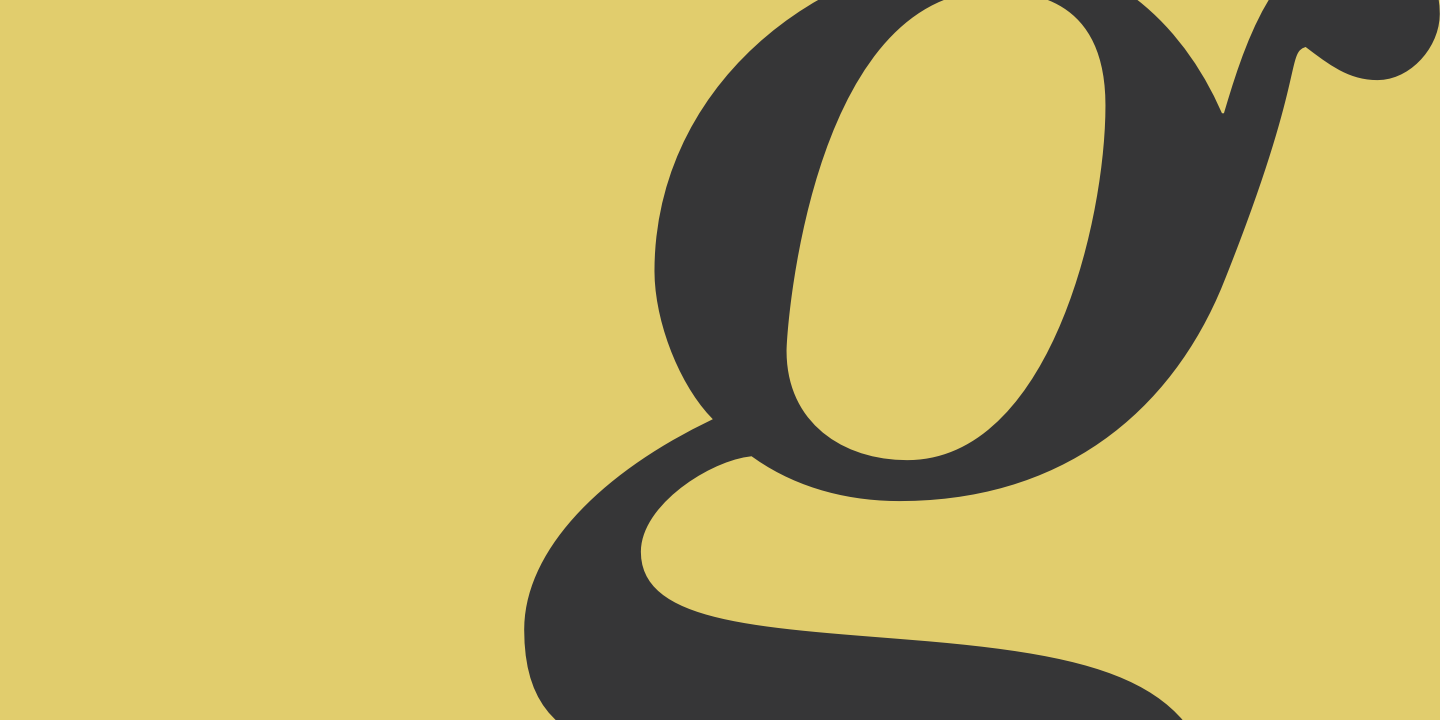
Bodoni vs Teodor
Bodoni and Teodor are both serif typefaces sharing a high contrast foundation. Where Bodoni leans didone, expressive, Teodor brings display, fashion. Compare which suits your Fashion project.
83% Similarity
Design overlap:33%
Bodoni
High ContrastDidone
ElegantExpressive
Teodor
High Contrast
Elegant
DisplayFashion
| Feature | Bodoni | Teodor |
| Source | ITC (International Typeface Corporation) | Pangram |
Recommended: Bodoni
- didone, expressive design character
Consider: Teodor
- display, fashion design character